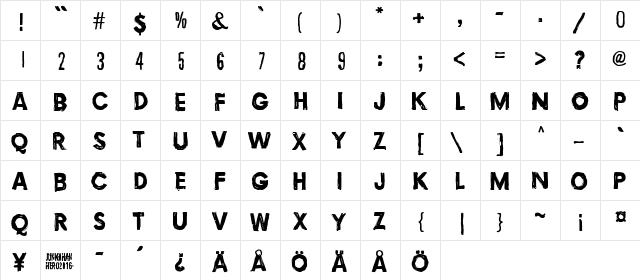
Torture, Dark Regular
Design Context for Torture, Dark Typeface
Torture, Dark is a composed and adaptable typeface that performs quietly and consistently across a wide range of design contexts.